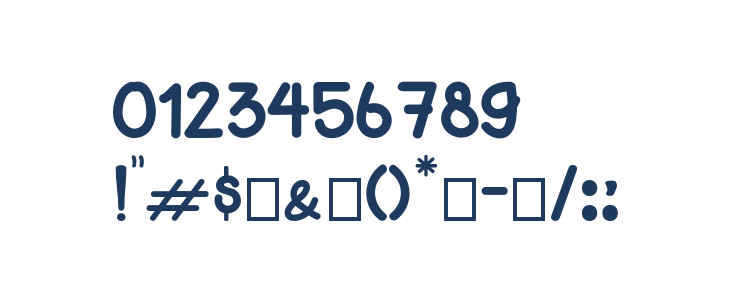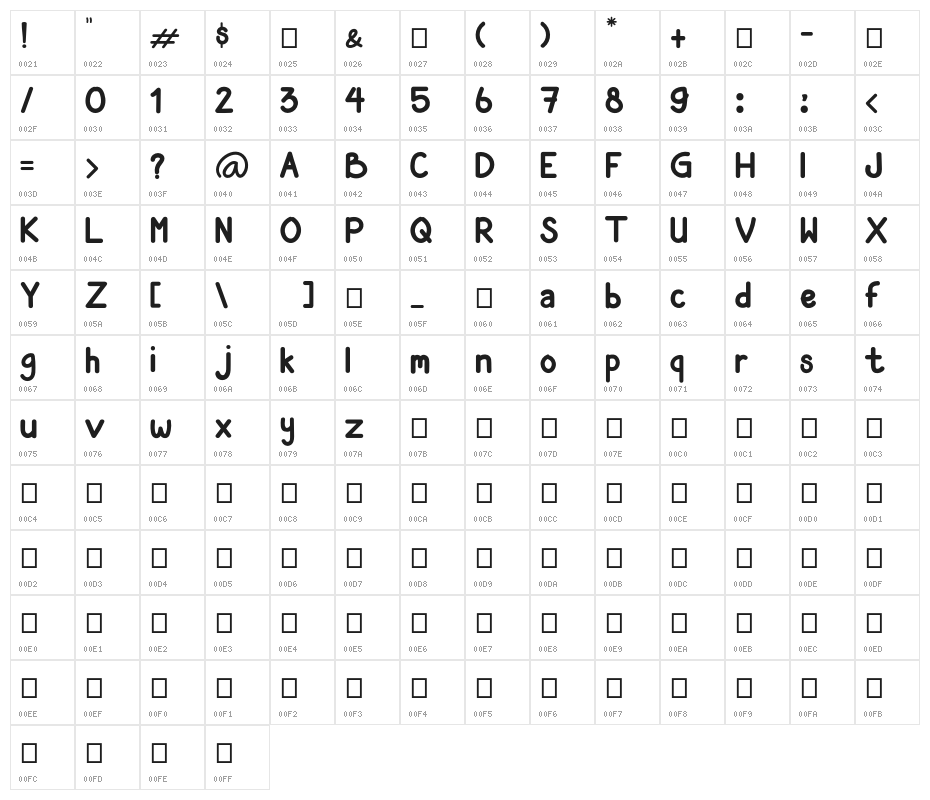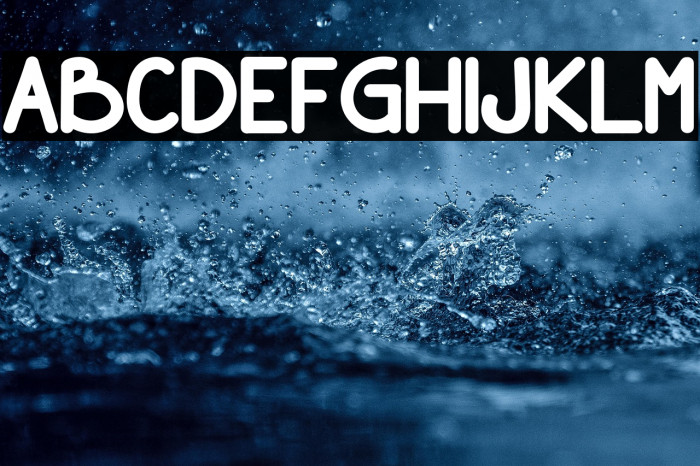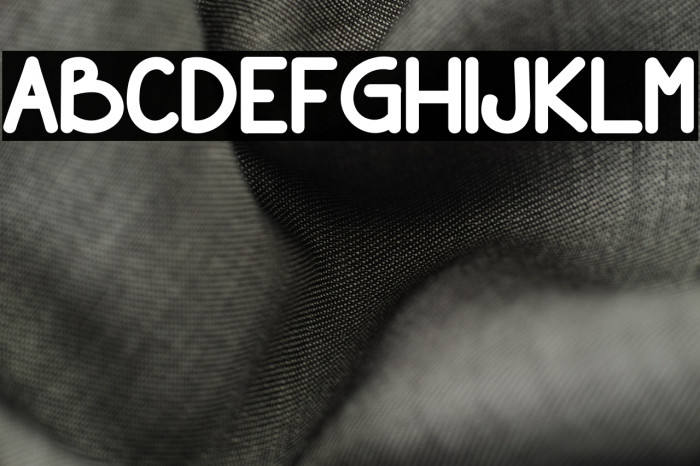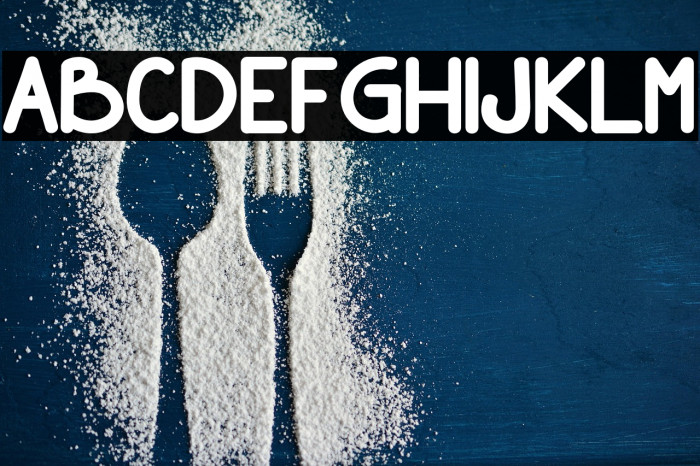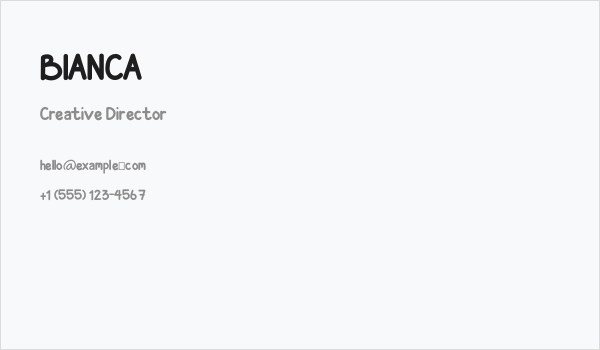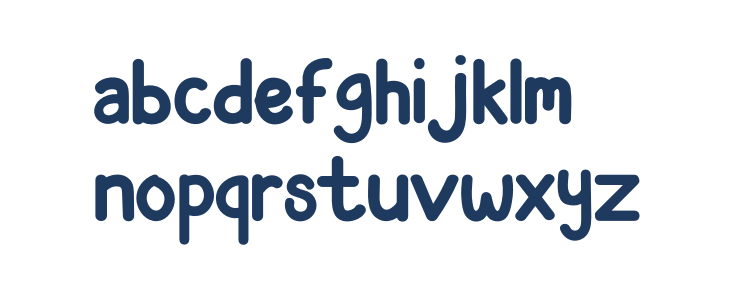
BIANCA Font
BIANCA Description
This playful and rounded font features bold, smooth curves that give it a friendly and approachable appearance. The characters are evenly weighted, providing a consistent and harmonious look across both uppercase and lowercase letters. The numbers and special characters maintain the same rounded style, ensuring uniformity throughout. Its thick strokes and lack of sharp edges make it ideal for designs that require a warm and inviting feel. The font's simplicity and clarity make it highly legible, even at smaller sizes, while its boldness ensures it stands out in larger formats.
| Proposed Projects | Ideal for children's books, playful branding, casual invitations, and educational materials. |